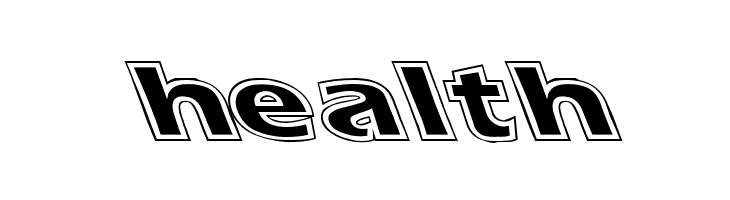
( Fonts by Scott Dieznyik - Kejak (formerly Cheops) )
A textured, honeycomb-inspired font with a playful, handcrafted style.
( Fonts by Alan Carr )
An elegant, engraved serif font with high contrast and classic appeal.
A bold, 3D decorative font with a playful and dynamic style.
( Fonts by Scott Dieznyik - Kejak (formerly Cheops) )
A pixelated, retro-style font with a digital, blocky appearance.
( Fonts by Phillip Cavette )
A bold, distressed font with a vintage, textured appearance.
( Fonts by Jester Font Studio )
A whimsical snowman-themed font with bold, clear characters.
( Fonts by Jester Font Studio )
A bold, textured font with a rocky, natural appearance.
( Fonts by Sinister Visions - Chad Savage - www.sinisterfonts.com )
An edgy, claw-inspired font with sharp, dramatic detailing.
( Fonts by uatype.faithweb.com - UnAuthorized Type )
A decorative font with feather-like elements and bold outlines, ideal for creative projects.
A bold, artistic font with irregular, hand-drawn shapes and playful curves.
( Fonts by Alan Carr )
A modern, geometric font with tall, narrow uppercase and rounded lowercase letters.